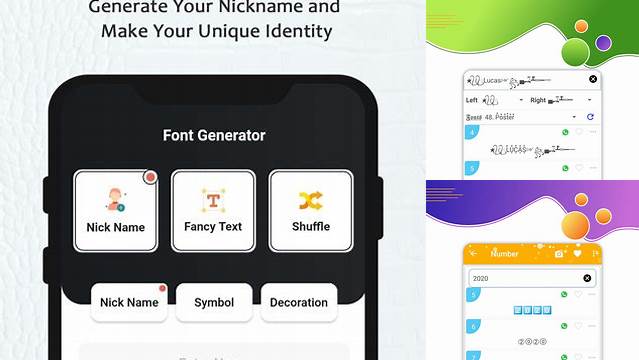
Nickname Generator: Cool Fonts & Free Options
H1 Heading: Nickname Generator: Cool Fonts & Free Options
H2 Heading: Understanding the Appeal of Unique Nicknames
Hey guys! Ever wondered why we're so obsessed with cool nicknames? It's not just about having something catchy to go by; it's about expressing ourselves and carving out a unique identity. In the vast digital world, a unique nickname can make you stand out from the crowd. Think about it – a clever nickname is like your personal brand, a quick snapshot of who you are. Using a nickname generator free fonts tool can help you achieve this unique identity by allowing you to create a nickname that not only sounds cool but also looks visually appealing with different fonts. Whether you’re gaming, chatting online, or just hanging out on social media, a great nickname can be a game-changer. It can be a conversation starter, a way to connect with others, and even a source of confidence. The allure of a memorable nickname lies in its ability to encapsulate your personality, interests, or even a funny quirk. So, let's dive into why unique nicknames are so appealing and how we can create some awesome ones using free font options and generators.
H2 Heading: Why Use a Nickname Generator?
Okay, so why even bother with a nickname generator free fonts? Well, coming up with the perfect nickname can be surprisingly tough! You want something that's memorable, reflects your personality, and isn't already taken by a million other people. That's where a nickname generator comes in handy. These tools are designed to spark your creativity and give you a bunch of ideas you might not have thought of on your own. Plus, when you factor in free fonts, you can make your nickname even more unique and eye-catching. Imagine having a nickname that not only sounds cool but also looks super stylish! A good generator can combine words, use alliteration, or even throw in some symbols to create a name that truly stands out. It’s a quick and easy way to brainstorm a ton of options, saving you time and effort. So, if you're struggling to find that perfect moniker, a nickname generator is definitely your best friend. And the best part? Many of these generators offer free font options to further customize your name. Using a nickname generator free fonts is a strategic way to create a digital persona that is both memorable and visually appealing, ensuring you make a lasting impression wherever you go online.
H2 Heading: Exploring Free Font Options for Nicknames
Now, let's talk about fonts! The right font can take your nickname from good to amazing. There are tons of free fonts out there that can add a personal touch to your chosen name. Think about it – a bold, edgy font can give off a totally different vibe than a flowy, elegant one. When you're using a nickname generator free fonts, you're not just getting a name; you're also getting the chance to visually express yourself. For instance, if you’re into gaming, a pixelated or futuristic font might be perfect. If you're going for something more sophisticated, a classic serif font could be the way to go. The possibilities are endless! Many websites offer a wide variety of free fonts that you can easily copy and paste into your nickname generator or use directly on platforms like social media or gaming sites. Don't underestimate the power of a well-chosen font – it can really make your nickname pop and leave a lasting impression. So, take some time to explore the different free font options available and see how they can transform your nickname. The combination of a creatively generated nickname and a stylish font is the key to standing out in the digital world. A nickname generator free fonts empowers you to create a unique identity that is both expressive and visually captivating.
H2 Heading: How to Choose the Right Font for Your Nickname
Choosing the right font for your nickname is like picking the perfect outfit – it can totally change the vibe! When you're using a nickname generator free fonts, you'll likely have a ton of options to choose from, so how do you narrow it down? First, think about the overall impression you want to make. Are you going for something playful and fun? Or maybe something more serious and edgy? The font should reflect that. For example, a script font might be great for a whimsical nickname, while a bold sans-serif font could be perfect for something more powerful. Also, consider where you'll be using your nickname. A font that looks great on a gaming profile might not be the best choice for a professional social media account. It's also important to make sure the font is easy to read, especially if your nickname is a bit longer. Experiment with different fonts and see how they look with your name. Most nickname generator free fonts tools allow you to preview the results, so take advantage of that! Remember, the right font can make your nickname stand out and help you make a lasting impression. A thoughtful font choice enhances the impact of your nickname, adding an extra layer of personality and style to your digital presence. The combination of a creatively generated nickname and a well-chosen font is a powerful way to express yourself online.
H2 Heading: Understanding Font Styles: Serif vs. Sans-serif
Okay, let's geek out about fonts for a sec! Knowing the basics can really help you choose the right font for your nickname when using a nickname generator free fonts. One of the most fundamental distinctions is between serif and sans-serif fonts. Serif fonts have those little